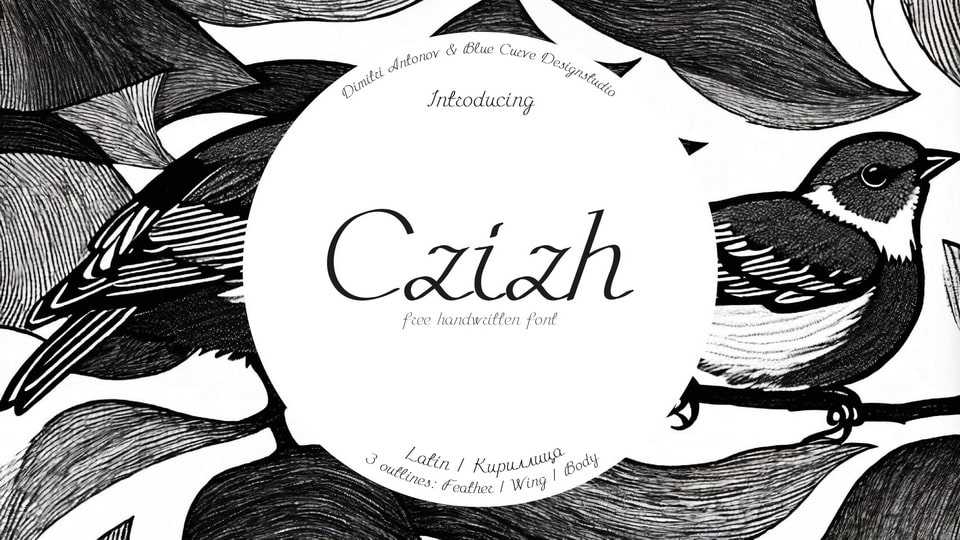
Download Chizh font, a simple cursive typeface that captures the essence of organic handwriting. Chizh font features a relaxed and flowing design, with each letter bearing subtle imperfections that make it feel genuinely handcrafted.
Designer: Dimitri Antonov